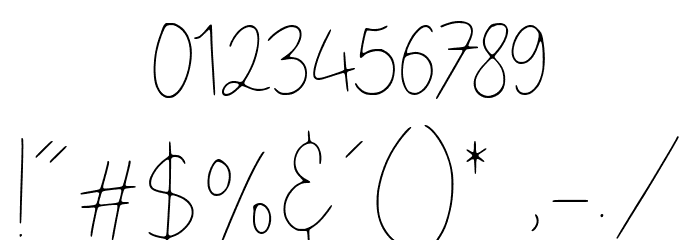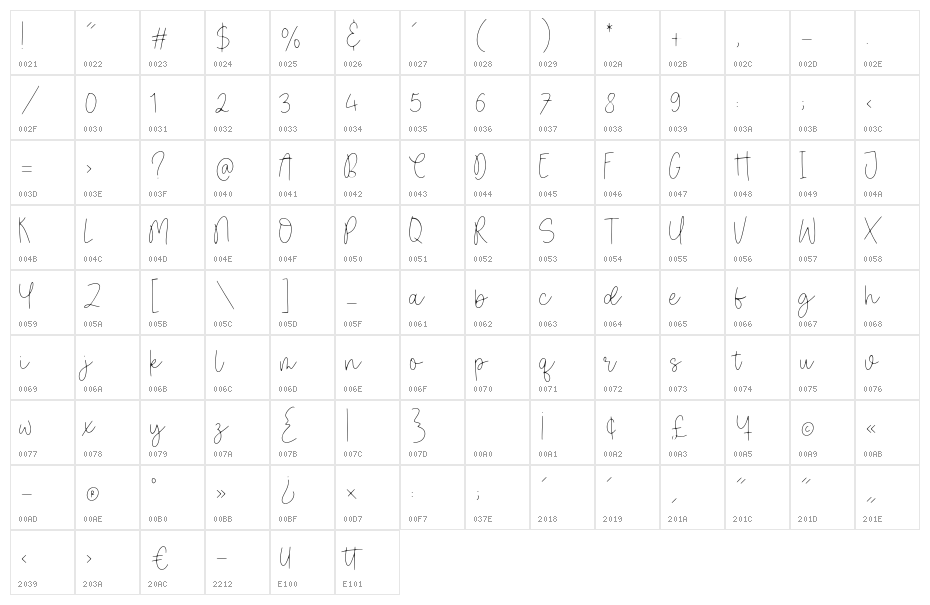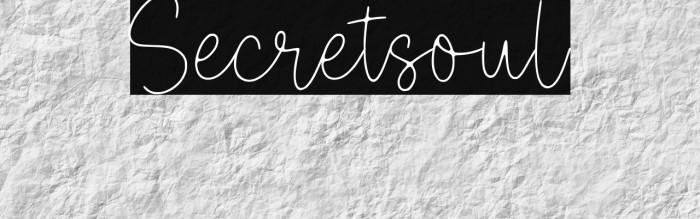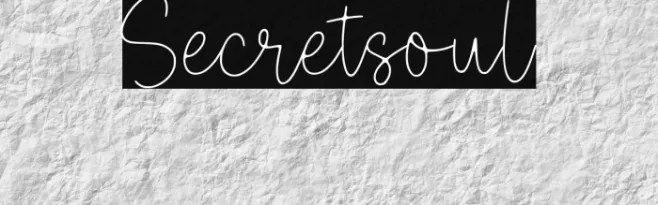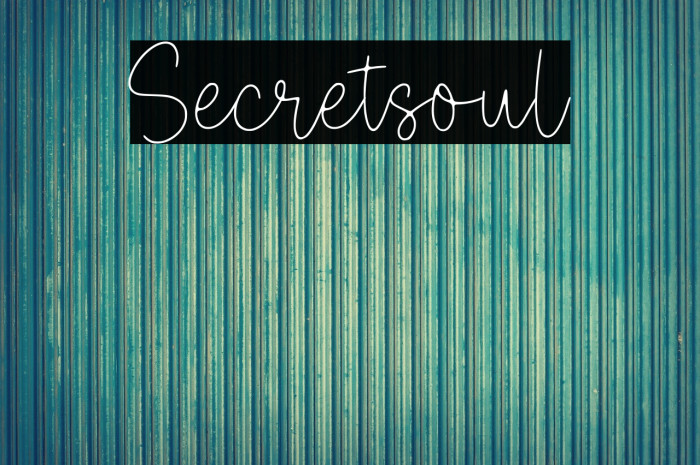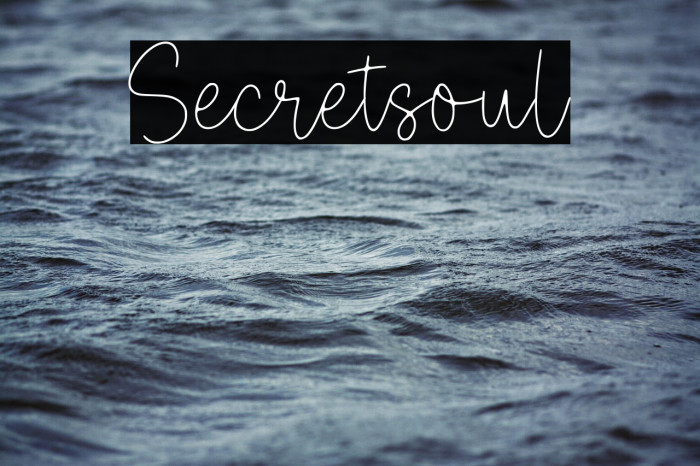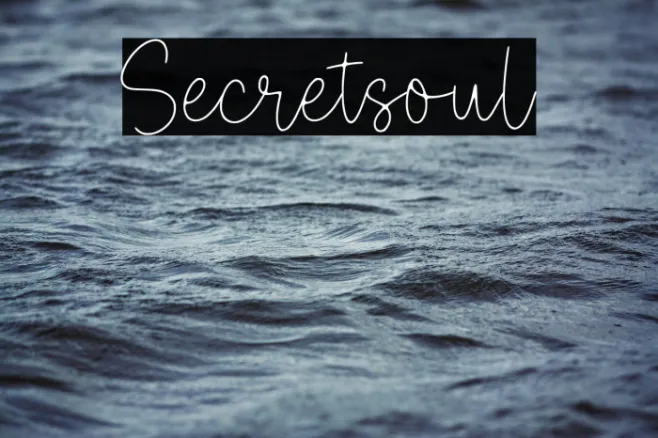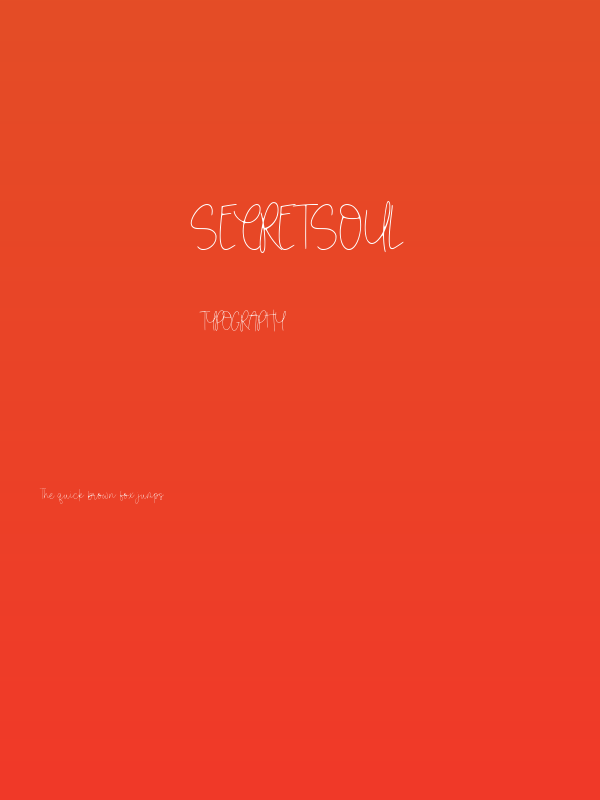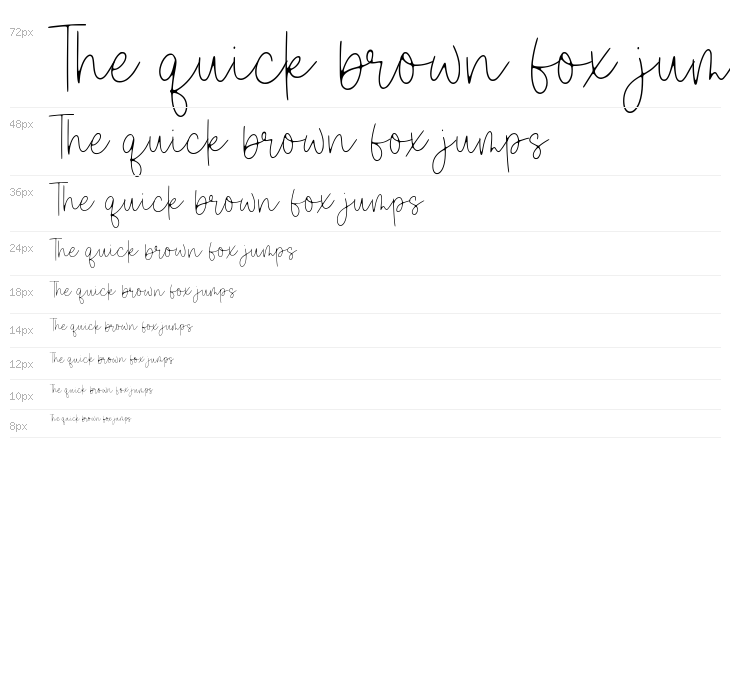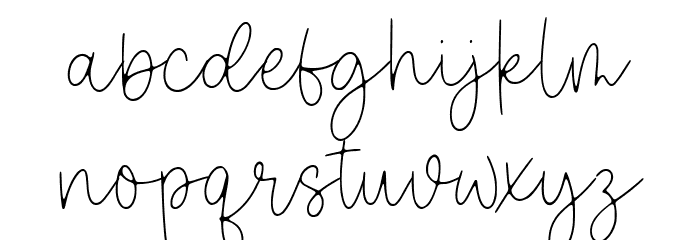
Secretsoul Font
Secretsoul Description
This font features a whimsical, handwritten style with a playful and casual appearance. The letters are thin and elongated, giving a sense of elegance and fluidity. The uppercase and lowercase letters maintain a consistent style, with smooth curves and a slightly irregular baseline that adds to the handwritten charm. The numbers and special characters follow the same aesthetic, ensuring a cohesive look across all text. This font is perfect for projects that require a personal touch, such as invitations, greeting cards, or creative branding.
| Proposed Projects | Ideal for invitations, greeting cards, creative branding, and personal projects. |